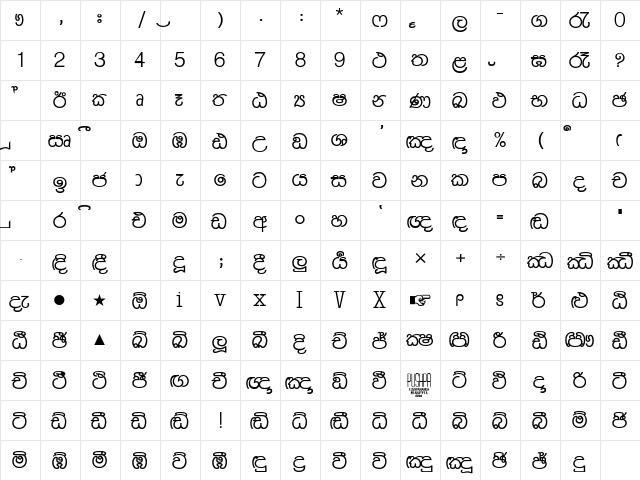
FMMalithi x Font Preview
FMMalithi x
Design Context for FMMalithi Typeface
FMMalithi offers clean, dependable letterforms without strong stylistic allegiance, making it a practical choice for designers who need flexibility.